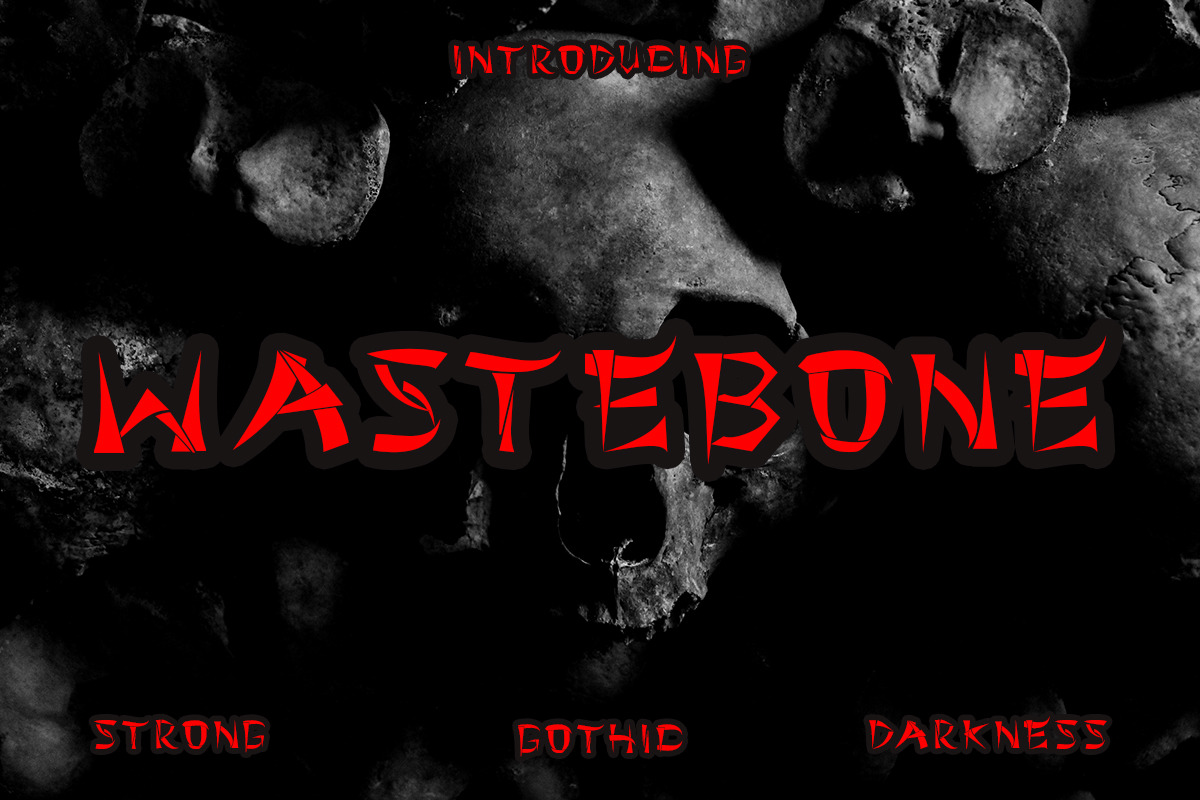
Wastebone Blackletter Gothic Font
Wastebone is a creepy, dark looking and uniquely designed display font. Add it to any design idea that you wish to highlight. The only limit is your imagination.